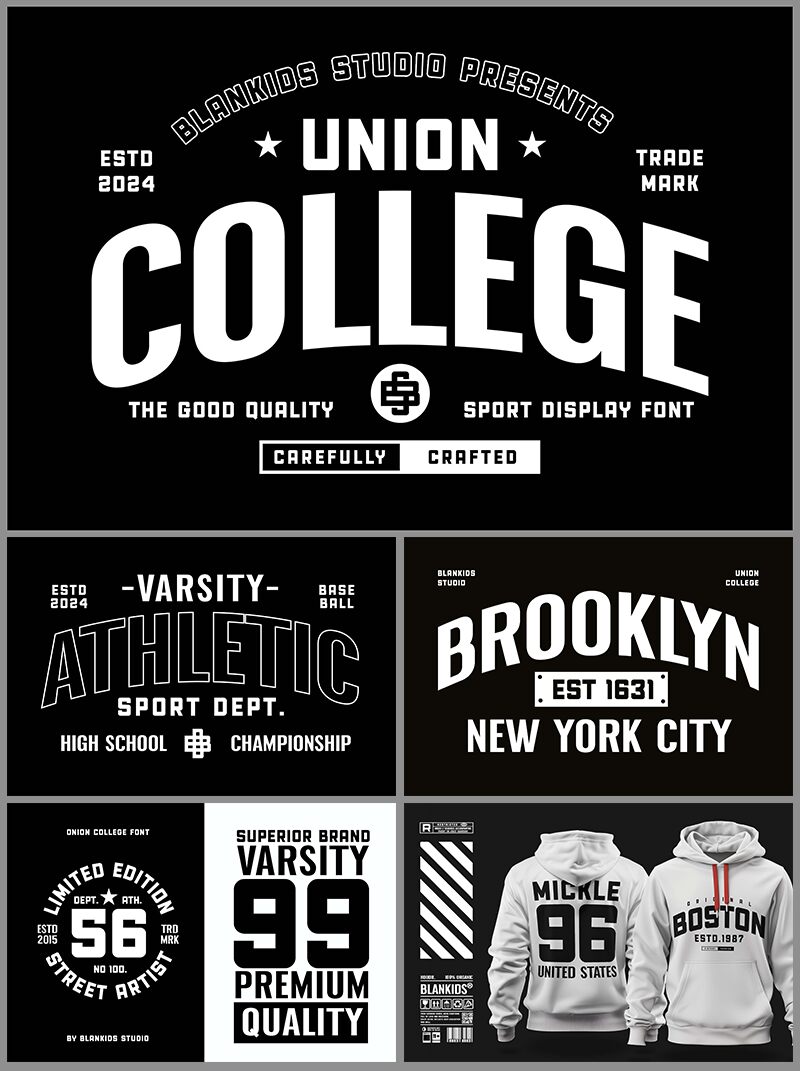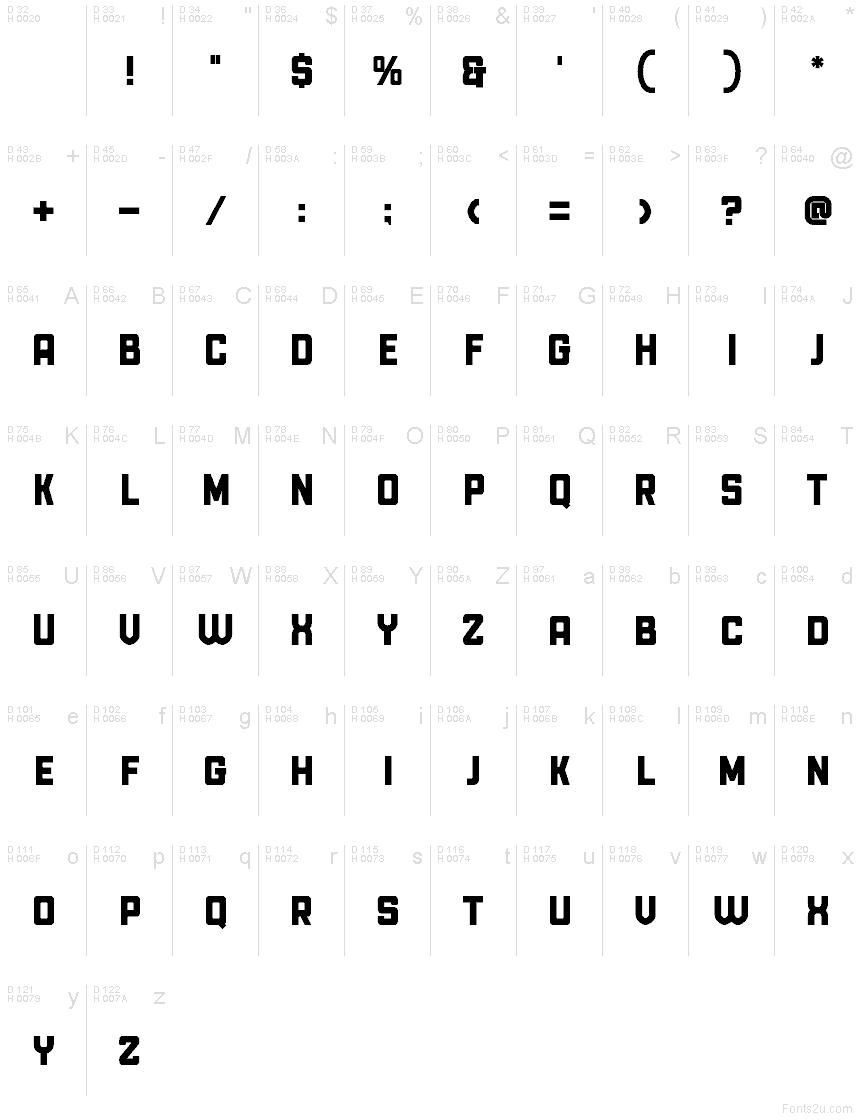
Union College Regular
Union College font by Blankids is a free retro sans serif typeface that channels classic college lettering with bold, blocky shapes and tight, upright rhythm. Its squared curves and tall, sturdy forms give every word the feel of a team banner or stadium sign, with just enough vintage roughness to keep it from feeling sterile or generic. The letters lock together like varsity patches on a jacket, creating a strong, unified wordmark with instant school-spirit energy.
Using Union College, this free font shines on sports logos, campus event posters, fan merch, yearbook covers, social media graphics, and bold header text for clubs or fraternities. It reads clearly at a distance, so it also works beautifully on jerseys and signage. For a clean, modern contrast, pair Union College in headlines with a simple geometric sans in smaller supporting text.